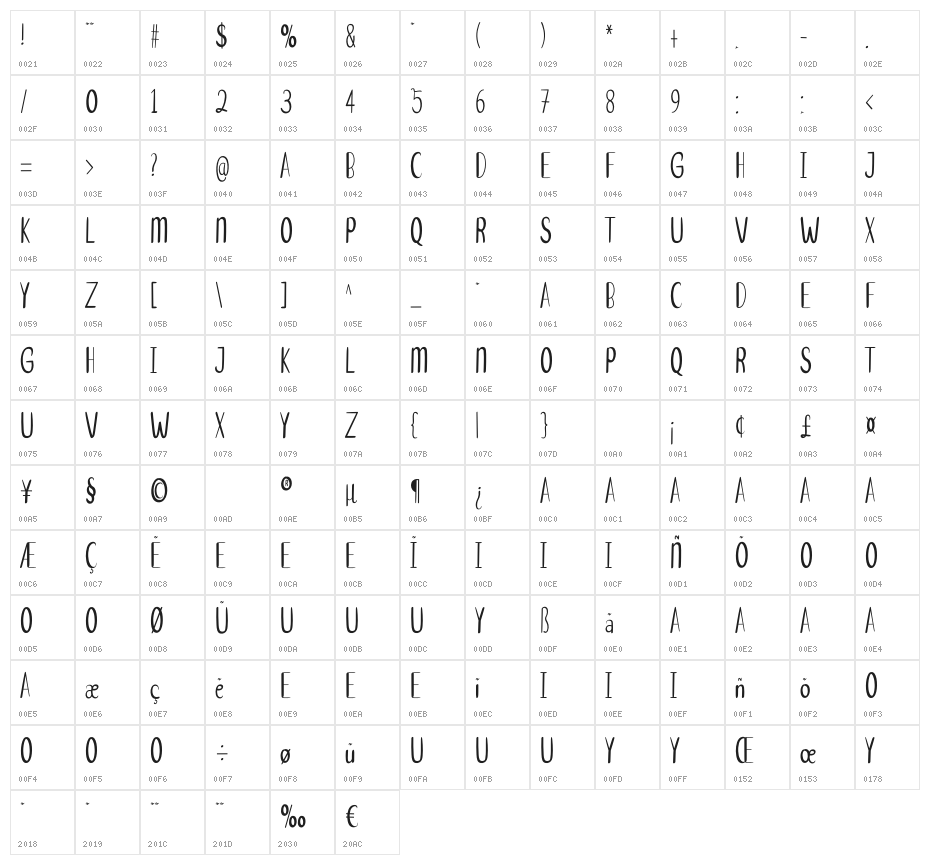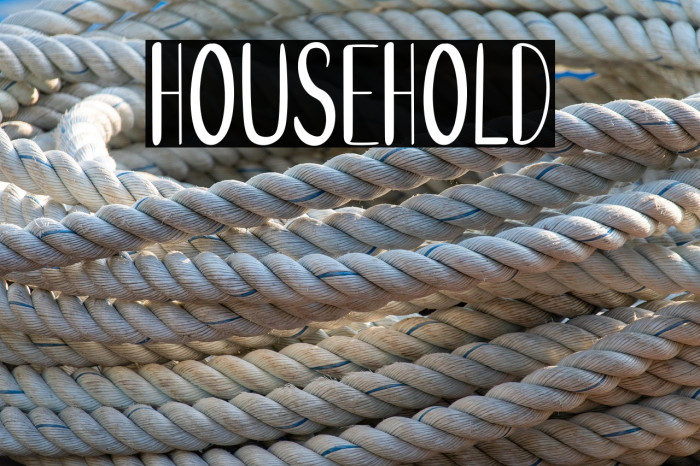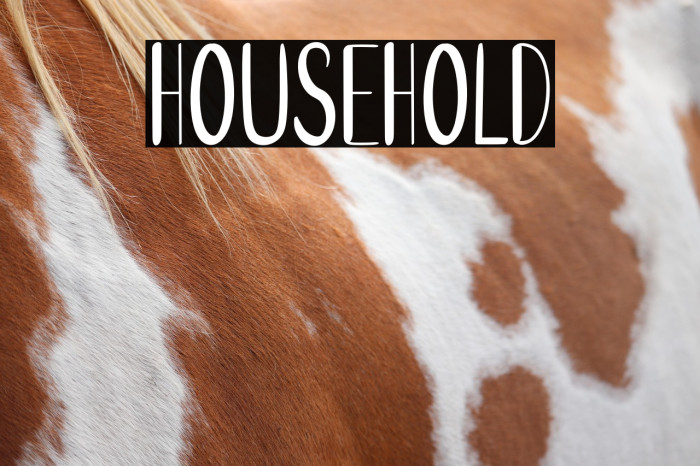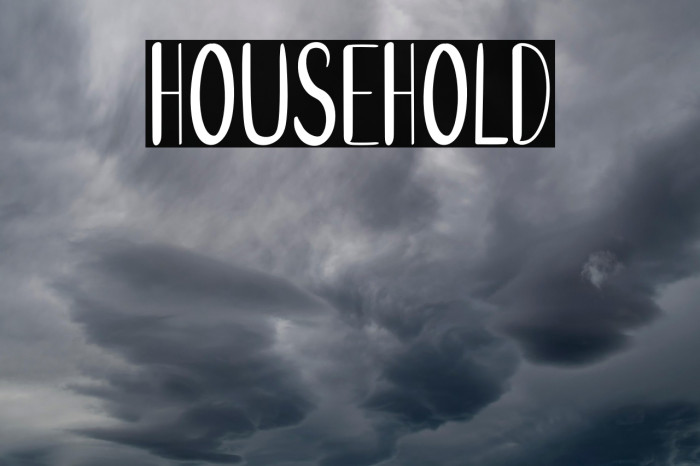
Household Font
Household Description
A playful, handwritten font with tall, narrow characters and a casual style.
| Use Case | Headlines, Informal text |
| Proposed Projects | Greeting cards, children's books, casual invitations. |